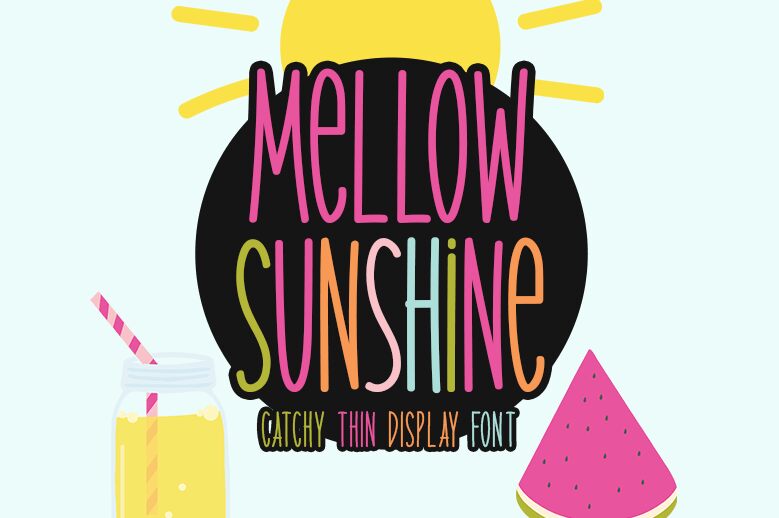
Mellow Sunshine
Mellow Sunshine font by Md Shohail Bhuian showcases a condensed handwritten style with light weight and retro-inspired letter structures. Tall, whimsical, and casual-looking, this youthful narrow typeface is mainly suitable for display uses in which it displays the highest of artistic creativity. Open up your project to an aura of warmth that generates positive vibes and elevates your designs.
This free handwritten font could be used in several features including vinyl covers, packaging stickers or labels, titles of comics or novels, apparel and fashion accessories printings, event tickets design, educational books of various levels and topics, fun diaries or agendas decorating et cetera.